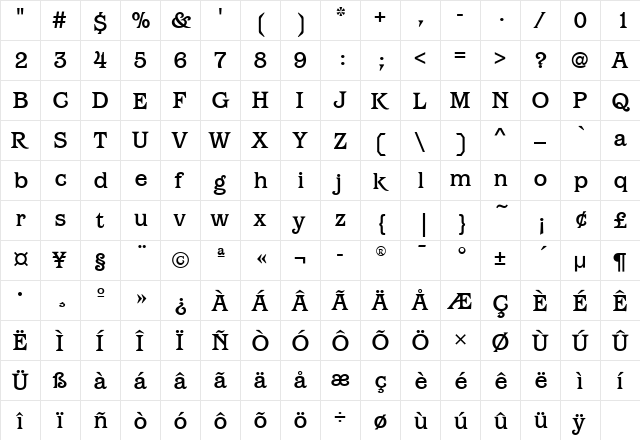
BarcelonaMdITC Medium
Design Context for BarcelonaMdITC Typeface
BarcelonaMdITC offers clean, dependable letterforms without strong stylistic allegiance, making it a practical choice for designers who need flexibility.